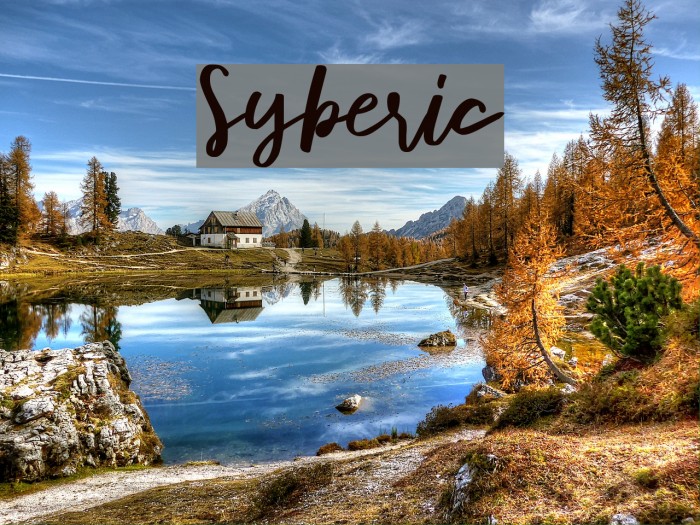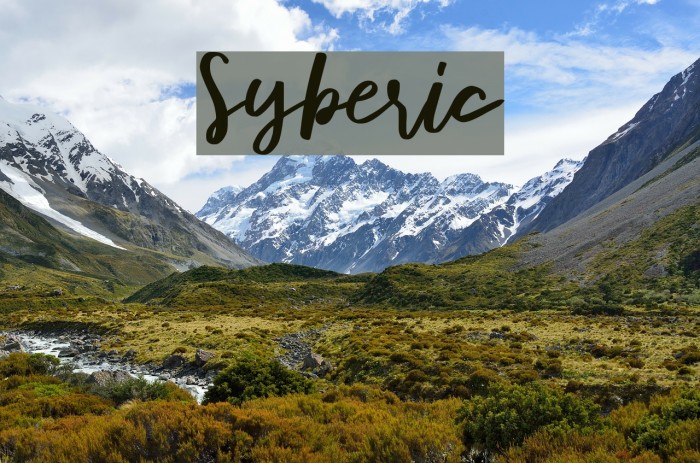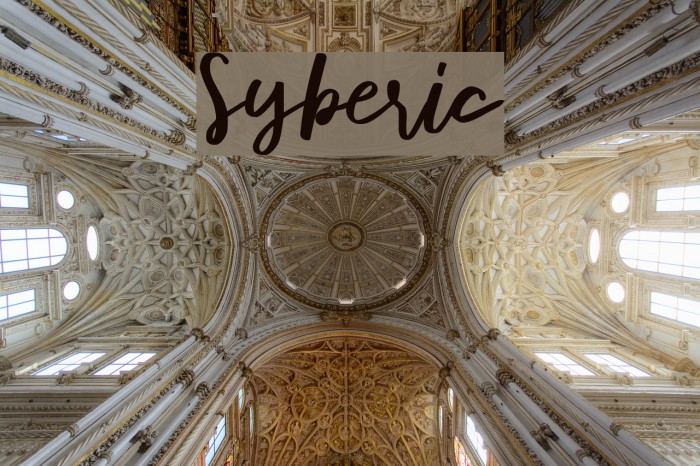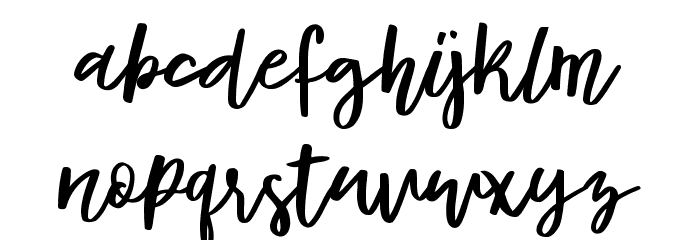
Syberic Font
This font features a dynamic and expressive handwritten style, characterized by fluid, cursive strokes that convey a sense of elegance and personal touch. The uppercase letters are bold and slightly slanted, adding a sense of movement and energy. The lowercase letters maintain a consistent flow, with some letters featuring unique loops and swirls that enhance its decorative appeal. The font's overall appearance is modern yet retains a classic handwritten charm, making it versatile for various design applications.
A dynamic, expressive handwritten font with fluid cursive strokes.
• Proposed Projects: Ideal for wedding invitations, greeting cards, branding projects, and social media graphics where a personal touch is desired.